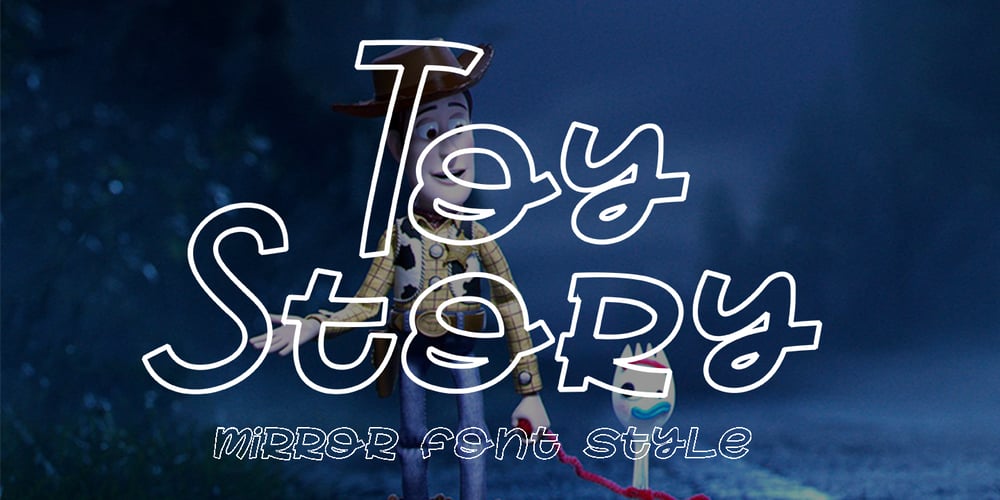
Toy Story Font Family was designed by Teuku Saifullah and published by Shape Studio. Toy Story contains 1 styles and family package options. We are proud to present our new font.Name of the font is TOY STORY.Toy Story is a fun handwritten font filled with handwritten charm and personality!It is the perfect choice for crafters with lawn mowers, as it is extremely smooth for optimal cutting performance.Toy Story is a fun font that’s bold and smooth enough to cut with the Cricut & Silhouette crafting machine, for Titles for children’s books, scrapbooks, logos, icons, phrasesor quotes for winter greeting cards (Halloween or New Year holidays),photo overlays, short phrases, children’s books, gift shop tags,presentations on social media Pinterest, Instagram, Facebook, or others.Thank you!